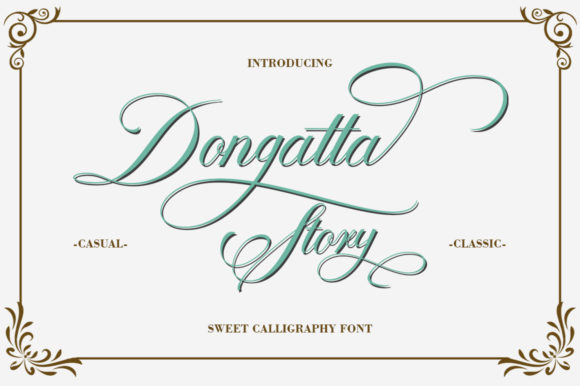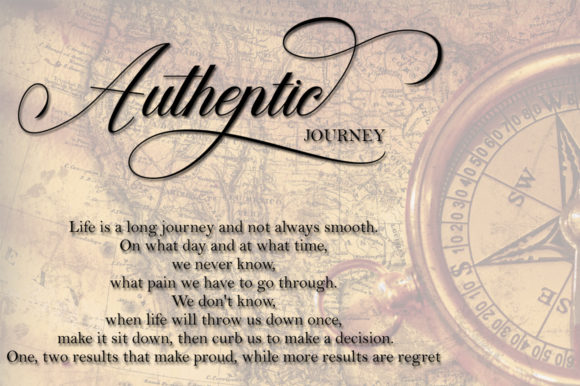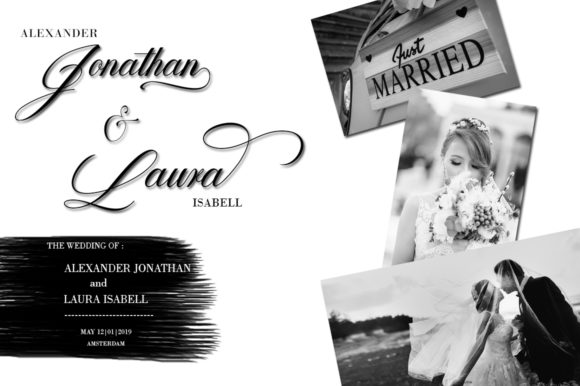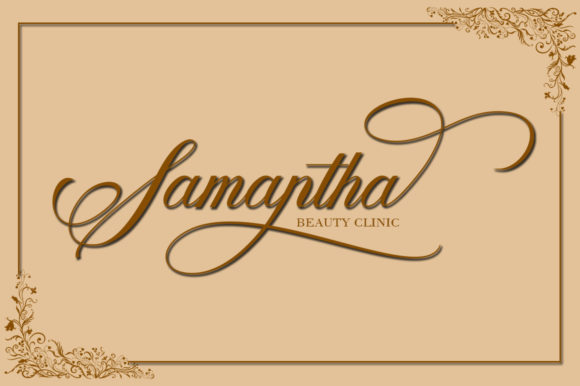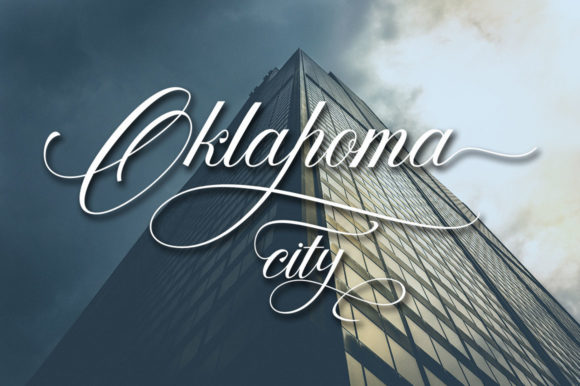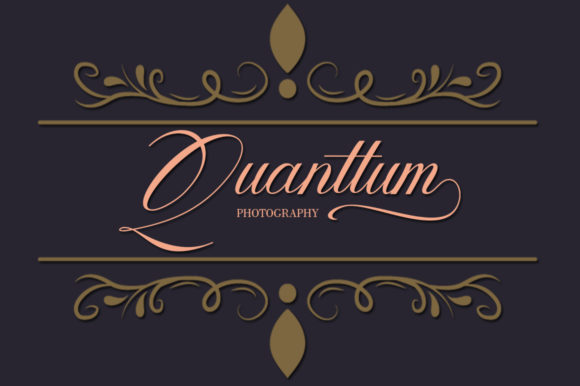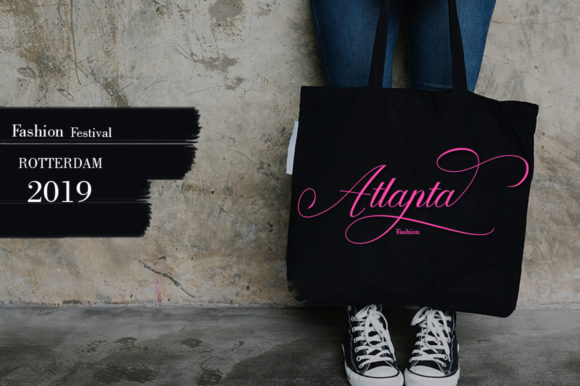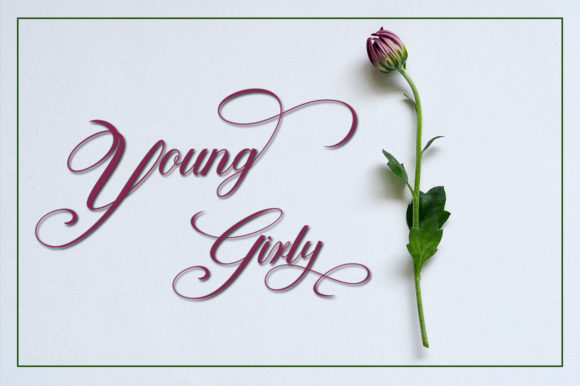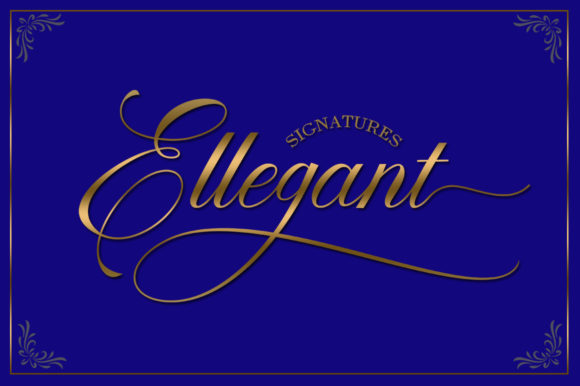
Dongatta Story Font
About Dongatta Story Font
Dongatta Story Script is a calligraphy script font that comes with beautiful alternative characters. It’s elegant and stylish, and will work for many different design purposes.